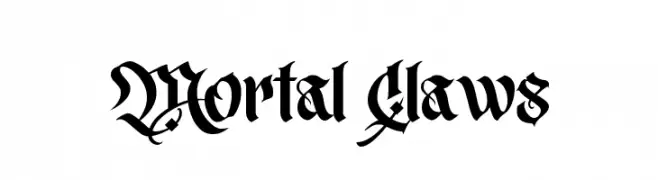
A bold, handwritten font with playful, brush-like strokes and a slightly spooky aesthetic.
A playful handwritten font with smooth, flowing strokes and a casual vibe.
A playful, spooky font with a hand-drawn, Halloween-inspired design.
A bold, handwritten font with dynamic and expressive strokes.
A spooky, dripping font perfect for horror-themed designs.
A playful, bold font with rounded, thick strokes and a hand-drawn feel.
A bold, playful font with rounded edges and uniform strokes.
A grunge-style font with an inline design and decorative serifs.
A bold, decorative font with a grunge aesthetic and intricate details.
A bold, elegant font with classic and modern elements, featuring distinct curves and decorative flair.
A bold, geometric typeface with angular shapes and sharp edges.
A decorative, whimsical font with a playful, spooky style and inline design.
Futuristic, bold inline font with geometric uppercase characters.
A bold, geometric font with thick strokes and a distinct outline.
A bold, industrial font with a distressed, grunge texture.
A bold, decorative font with intricate inline detailing and a dynamic, vintage-modern aesthetic.
A bold, grunge-style font with a distressed, rugged appearance.
An elegant and decorative font with intricate inline details and unique flourishes.
An ornate and decorative font with intricate swirls and flourishes.
A bold, high-contrast serif font with a classic yet modern appeal.
A grunge-style font with inline detailing and elegant serifs.
A bold, decorative font with geometric and sharp serif elements.
A bold, distressed font with a grunge effect and inline design.
A distressed, grunge-style font with a tall, narrow structure and textured appearance.
A bold, decorative font with grunge and inline detailing.
A bold, geometric font with strong, angular characters.
A grunge-style serif font with an inline design and vintage texture.
A bold, grunge-style font with a distressed, textured appearance.
A bold, distressed inline font with a grunge aesthetic.
A bold, decorative font with an inline style, offering a vintage yet modern look.
A bold, distressed serif font with a grunge texture.
A bold, inline font with a strong, geometric design and striking contrast.
A grunge-style font with a distressed, vintage look and geometric influences.
A bold, decorative font with intricate details and flourishes.